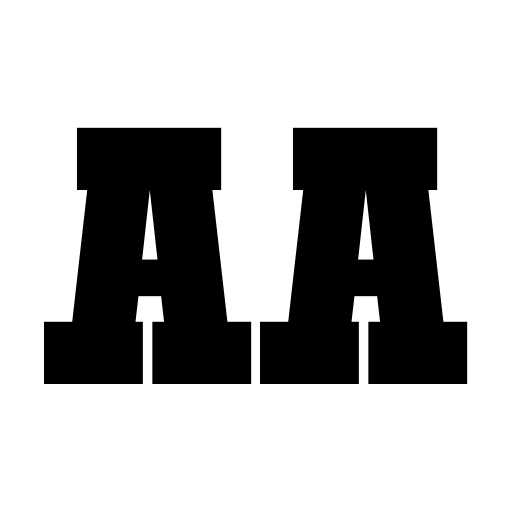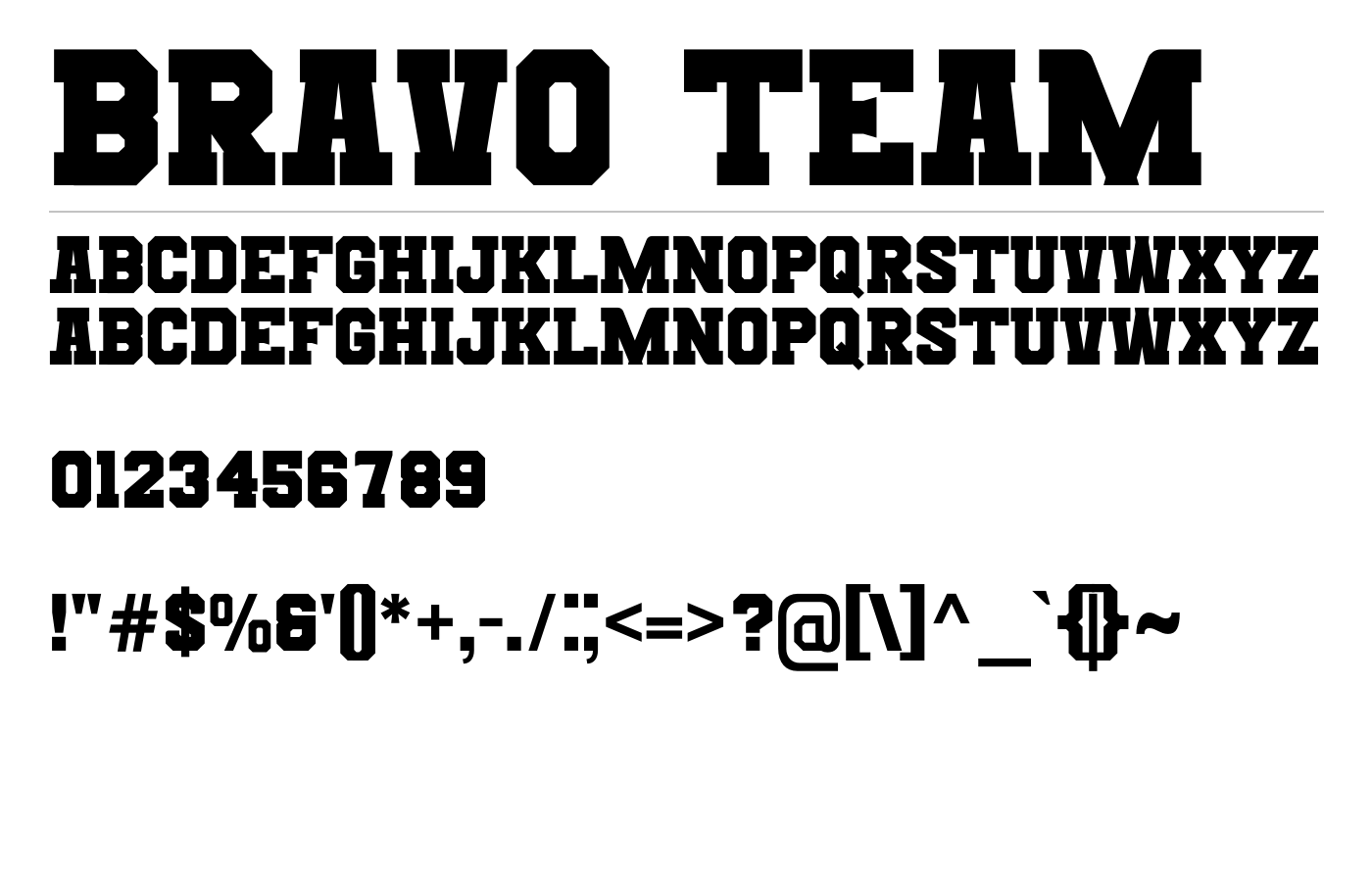
Bravo Team is a bold, condensed slab serif font with a strong, blocky appearance and sharp, unbracketed serifs, giving it a sturdy and industrial feel. Its high weight, all-caps style, and rigid geometric shapes make it ideal for impactful headlines, logos, and branding that demand a tough, no-nonsense presence. This font works well in sports, military, or urban-themed designs where strength and confidence need to be communicated clearly.
Bravo Team Font
About Bravo Team Font
| Font family | Bravo Team Font |